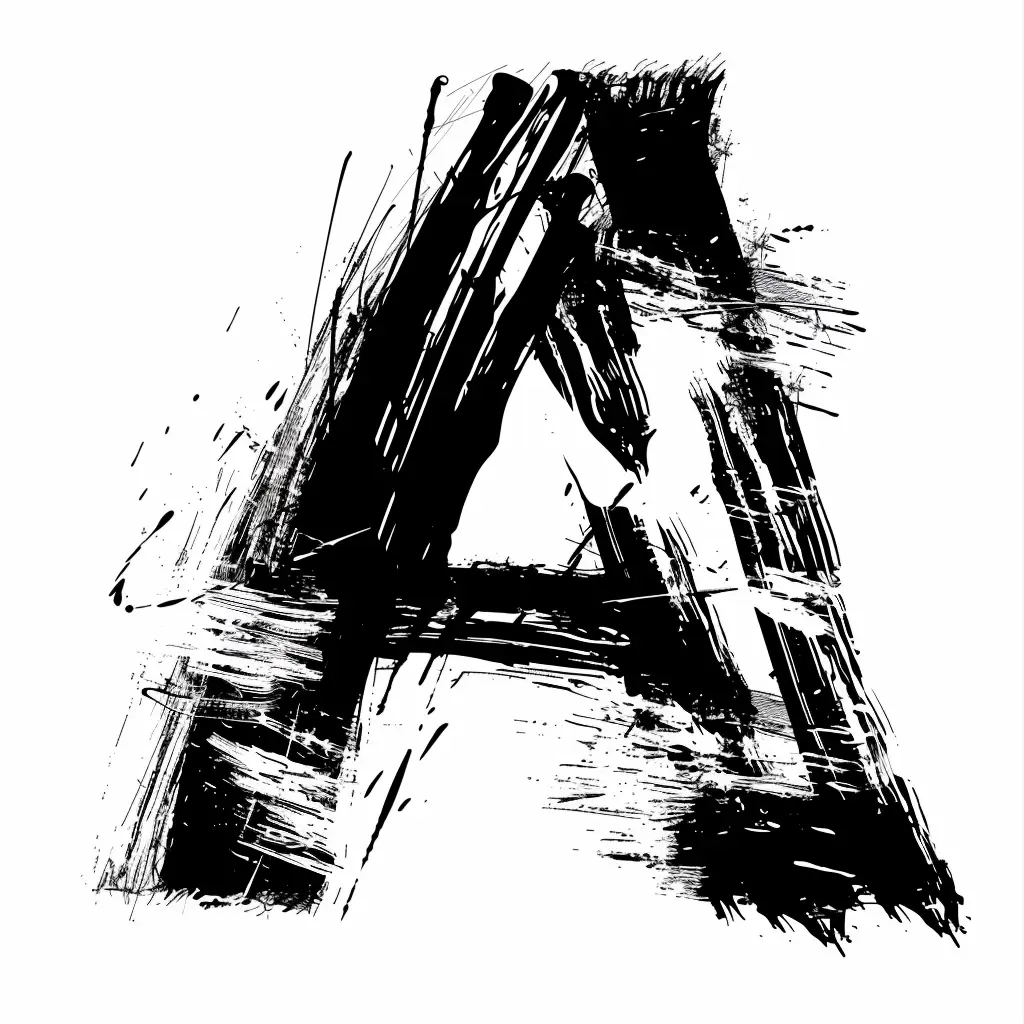
This image features a stylized, abstract representation of the letter "A" rendered in a bold, black-and-white artistic style. The letter is created with rough, textured brushstrokes, splatters, and layered lines, giving it a dynamic, hand-drawn, and somewhat chaotic appearance. The stark contrast between the black ink and white background emphasizes the letter’s form, while the irregular edges and scattered marks add a raw, expressive quality to the composition.